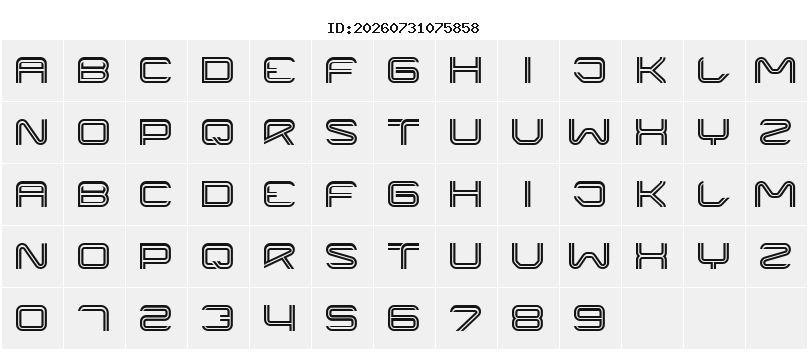
Liner Preview
• Font Name: Liner
• Font ID: Altsys Metamorphosis:Liner Regular
• Full Font Name: Liner Regular
• Version: Altsys Metamorphosis:18.02.2003
• PostScript Name: Liner
• Character Count: 68
About Liner.ttf
Liner.ttf is a modern, elegant sans-serif font designed for ultimate readability and visual harmony. Perfect for branding, headlines, web design, and print materials.